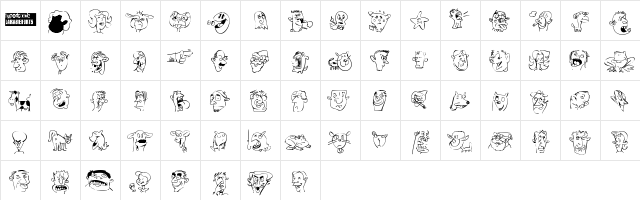
Sappy Mugs Regular
Design Context for Sappy Mugs Typeface
Sappy Mugs is a composed and adaptable typeface that performs quietly and consistently across a wide range of design contexts.